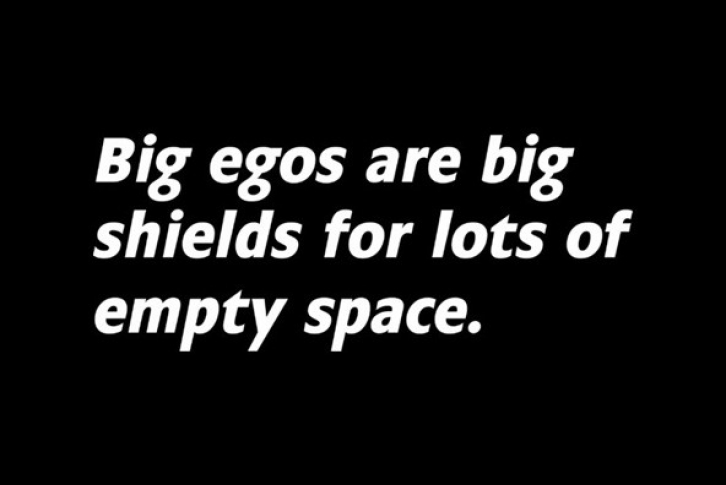
The typeface was designed after seeing a photocopy of some News Gothic text where the ink had faded on the bottom of each character. As character recognition is generally based on the top half of a character, readability was never compromised. Rather like Antique Olive the characters have a top heavy look when viewed straight on, however, as most type is read at an angle with the top further away than the bottom this top heavy look is diminished.